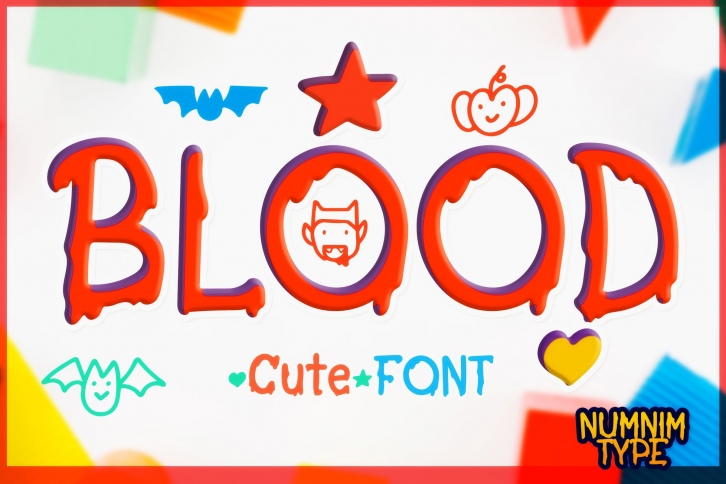
Blood is a cute and uniquely crafted handwritten font. Its fun and playful characters make it the perfect font for stickers, mugs, t-shirts, ornaments, Halloween event cards, and more! This font is PUA encoded which means you can access all glyphs and swashes with ease!